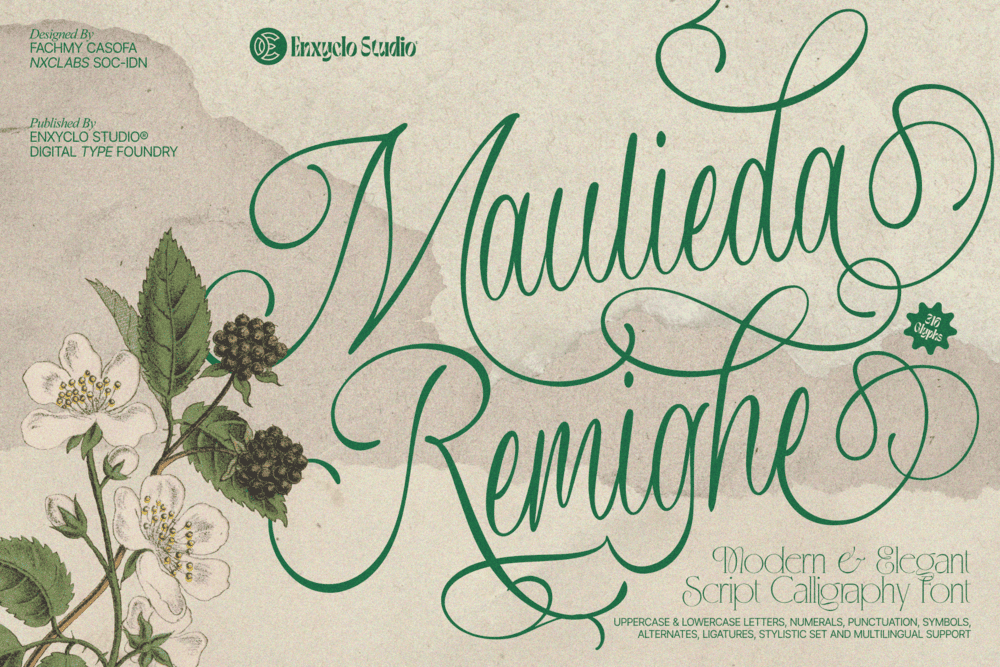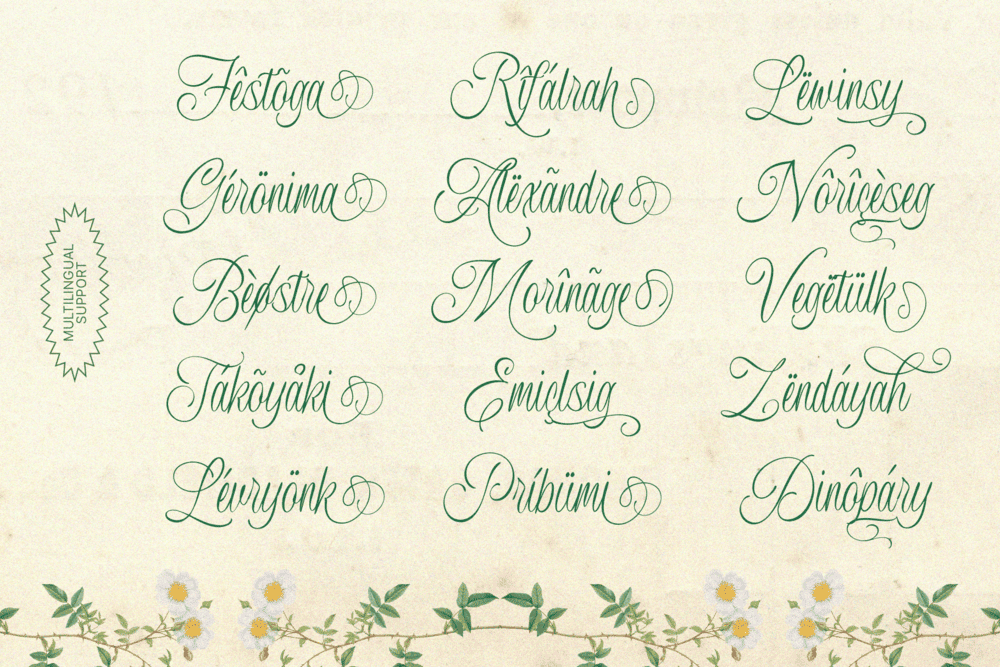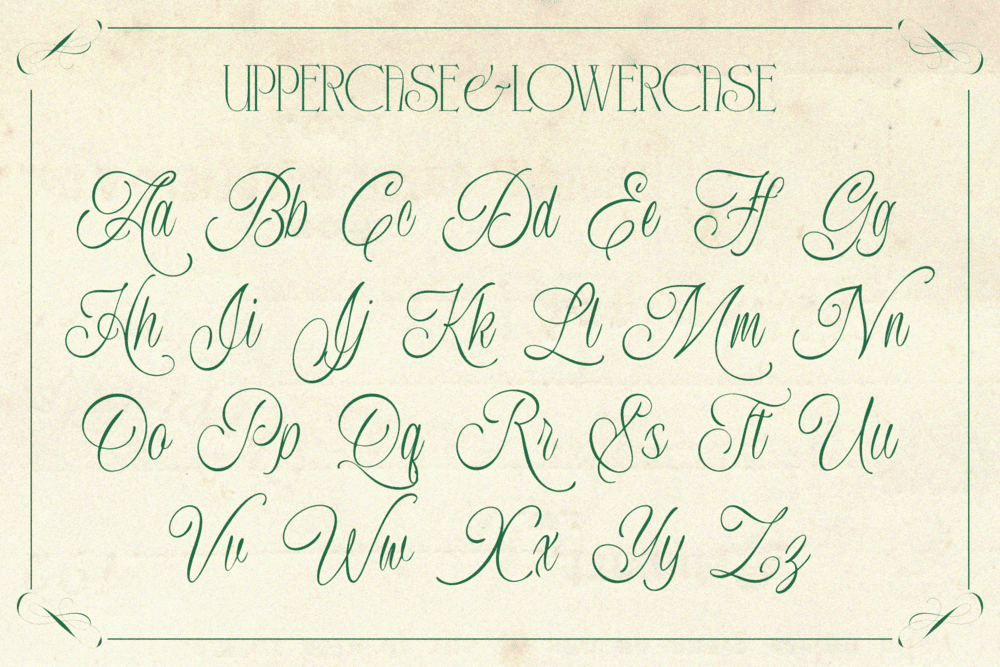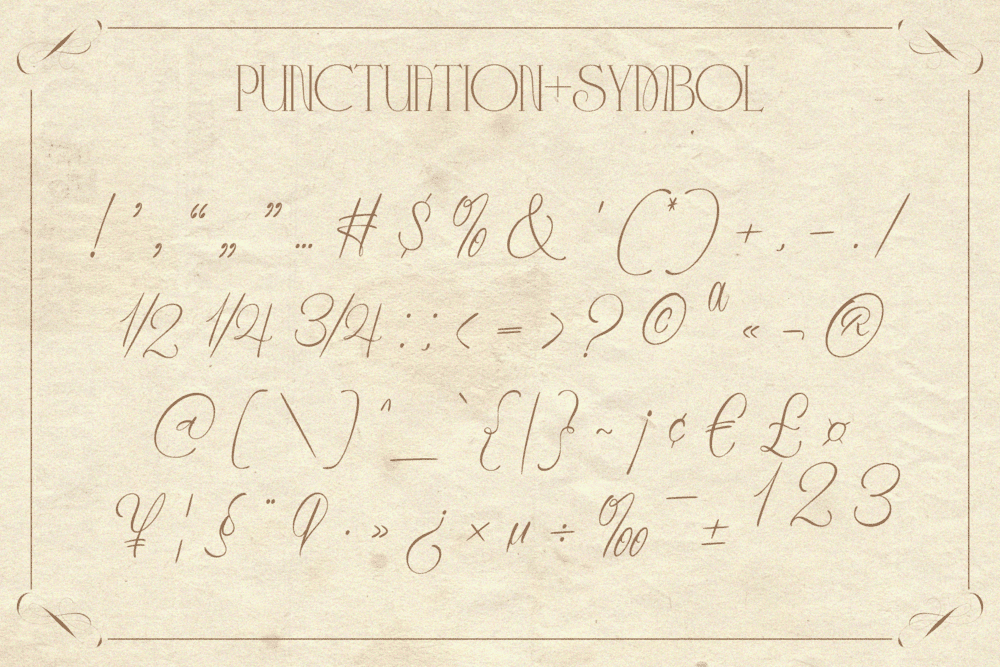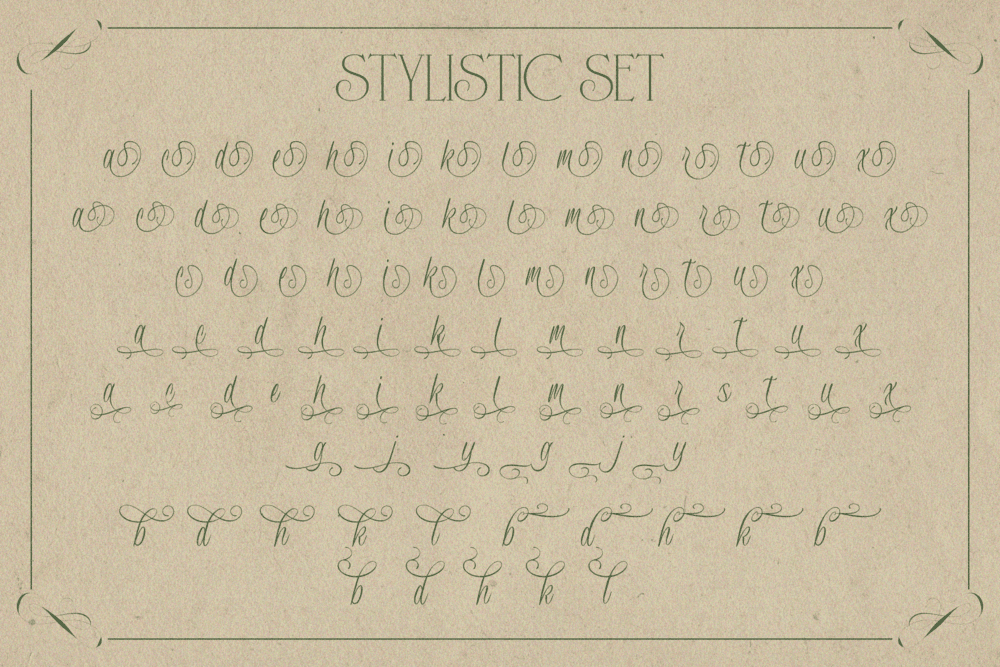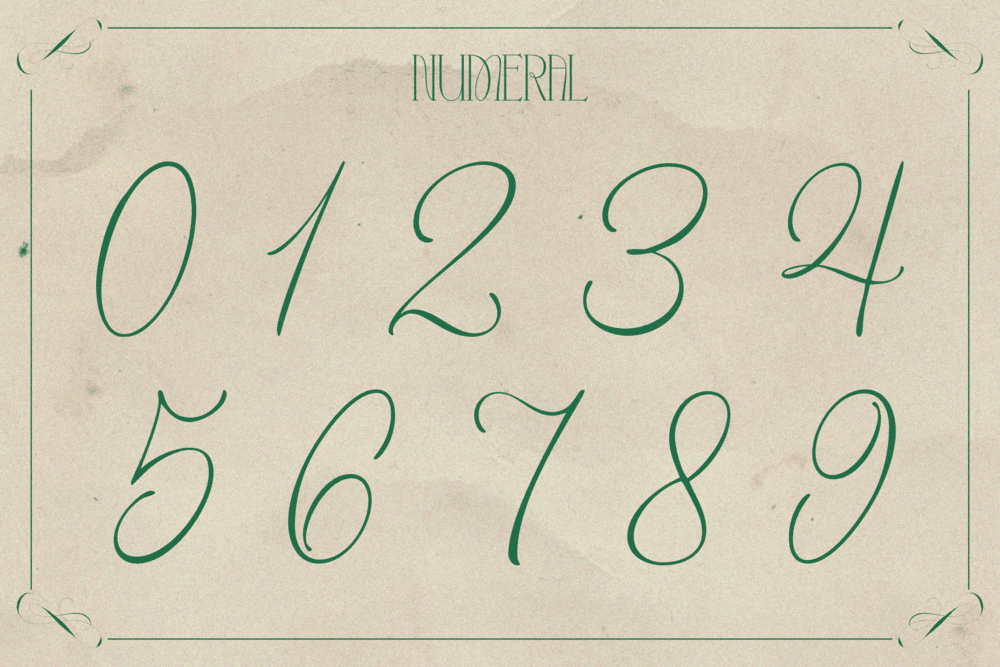
Maulieda Remighe is a timeless modern classic script font that celebrates the beauty of elegance, romance, and luxurious craftsmanship. Featuring graceful curves, refined calligraphic strokes, and an exquisite collection of flourishes and swashes, this typeface is designed to create typography that feels sophisticated, artistic, and unforgettable. Every letter flows naturally into the next, delivering a rich visual harmony that embodies premium design and timeless style.
Inspired by the world of luxury fashion, beauty, cosmetics, skincare, and boutique branding, Maulieda Remighe blends classic calligraphy with a modern aesthetic to produce a script font that is both lavish and versatile. Its elegant swash alternates allow you to create distinctive logos, brand identities, monograms, and signature typography with ease, while adding a graceful sense of movement and refinement to every composition. Whether you’re crafting a premium logo or an elegant product label, this font brings a polished and glamorous personality to your design.
With its abundance of decorative flourishes and stylish alternate characters, Maulieda Remighe is especially suited for wedding stationery and romantic visual branding. From luxurious invitations and save-the-date cards to beauty packaging, fashion editorials, and premium skincare campaigns, the font delivers an aesthetic that feels rich, feminine, and effortlessly elegant. Every word becomes a beautiful expression of celebration, sophistication, and timeless charm.
Designed for creatives who appreciate refined typography, Maulieda Remighe transforms ordinary lettering into a luxurious visual experience. It is more than a script font—it is a statement of modern elegance, premium branding, and classic beauty, crafted to help your designs leave a lasting impression.
FEATURE
- Uppercase & Lowercase Letters
- Numeral, Punctuation Marks, Currencies & Symbol Set
- Alternate, Stylistic Set & Ligature
- Multilingual Support
PERFECT FOR
- Luxury Logo & Brand Identity
- Wedding Invitations & Stationery
- Bridal & Wedding Branding
- Fashion & Boutique Branding
- Beauty, Cosmetic & Skincare Packaging
- Premium Product Labels
- Signature Logos & Monograms
- Glamour Editorial & Magazine Design
- Luxury Social Media Templates
- Perfume & Jewelry Branding
- Elegant Greeting Cards
- Event & Invitation Design
- High-End Packaging Design
- Personal Branding
- Luxury Lifestyle Marketing